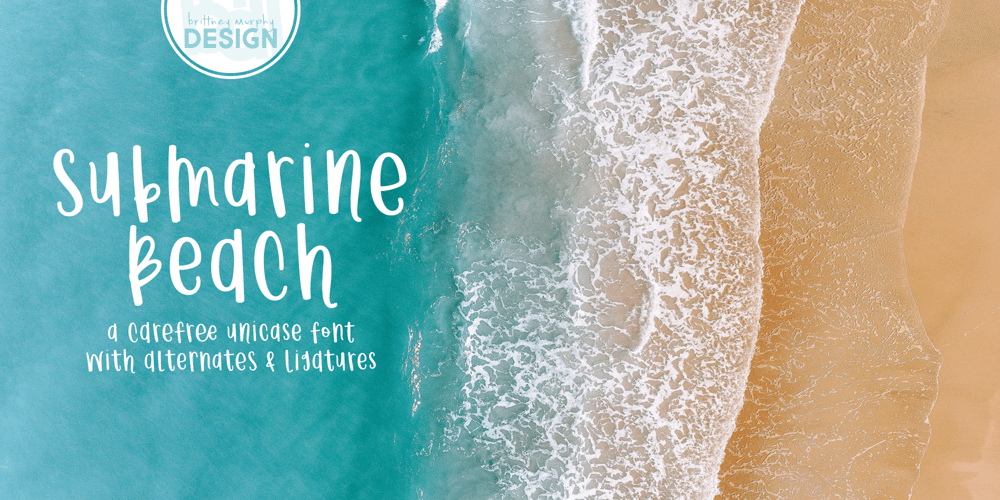
Submarine Beach
Submarine Beach font
Submarine Beach Font Family was designed by Brittney Murphy and published by Brittney Murphy Design. Submarine Beach contains 1 styles and family package options. Submarine Beach is a funloving & carefree mono height font with alternates and ligatures. Mix and match between upper and lowercase and alternates for a custom look!With over 500+ characters, the font includes extended Latin as well as Greek and Cyrillic.